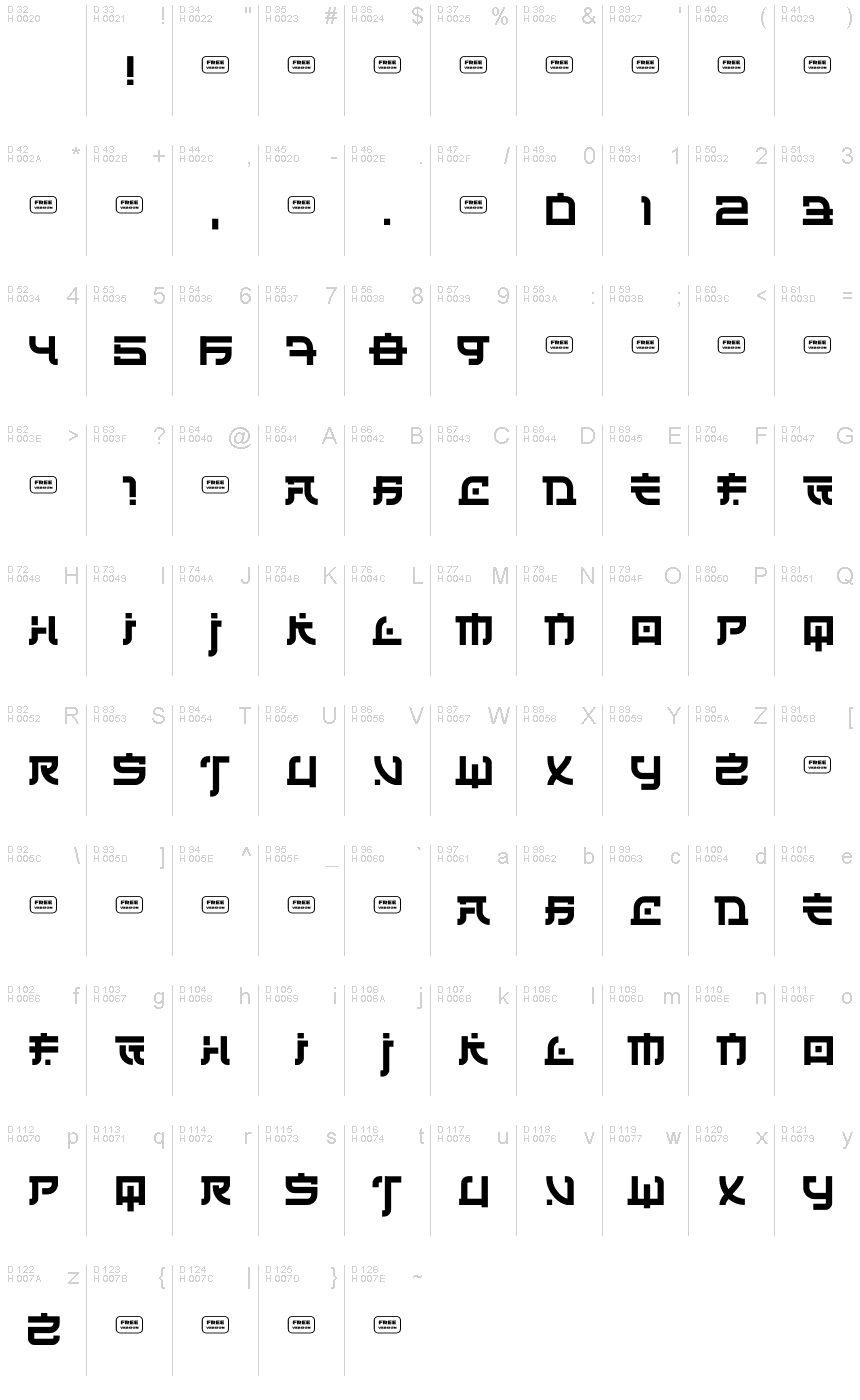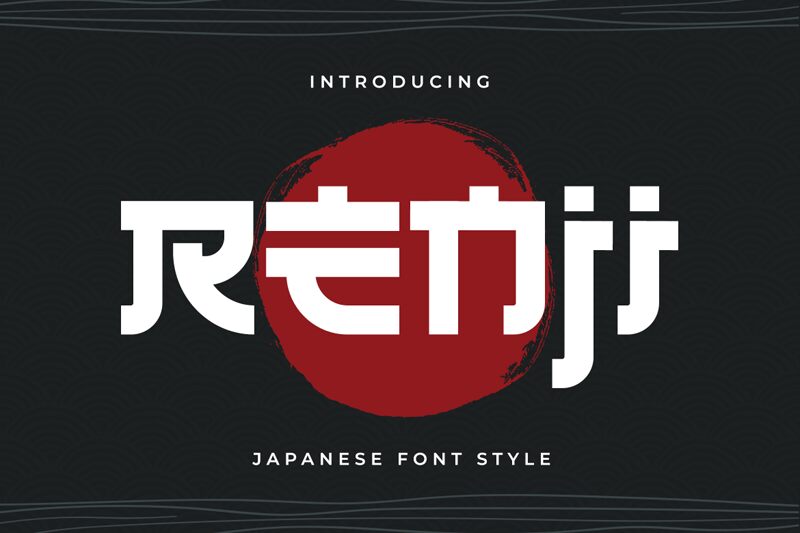
Renji, a stunning semi-bold font by Typefactoryco, draws its inspiration from the elegance of Japanese calligraphy. With its expanded width, this foreign typeface captivates attention and adds a touch of cultural authenticity to various creative projects.
Renji's simplicity and excellent readability make it an ideal choice for designing eye-catching T-shirts that effortlessly blend modern style with traditional charm. Moreover, this font is perfect for creating captivating prints or establishing a distinctive visual identity for restaurants seeking to convey an authentic Japanese dining experience.